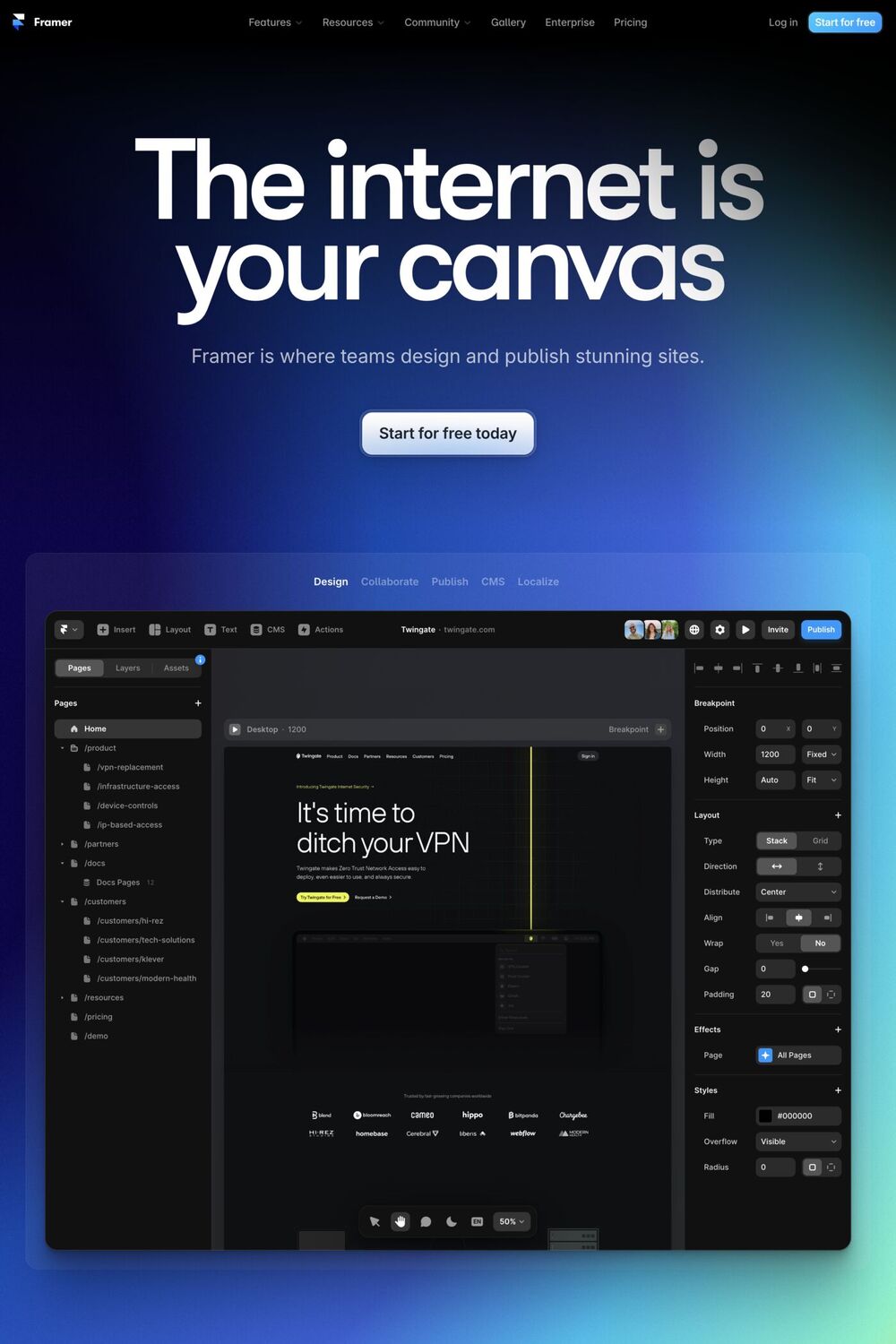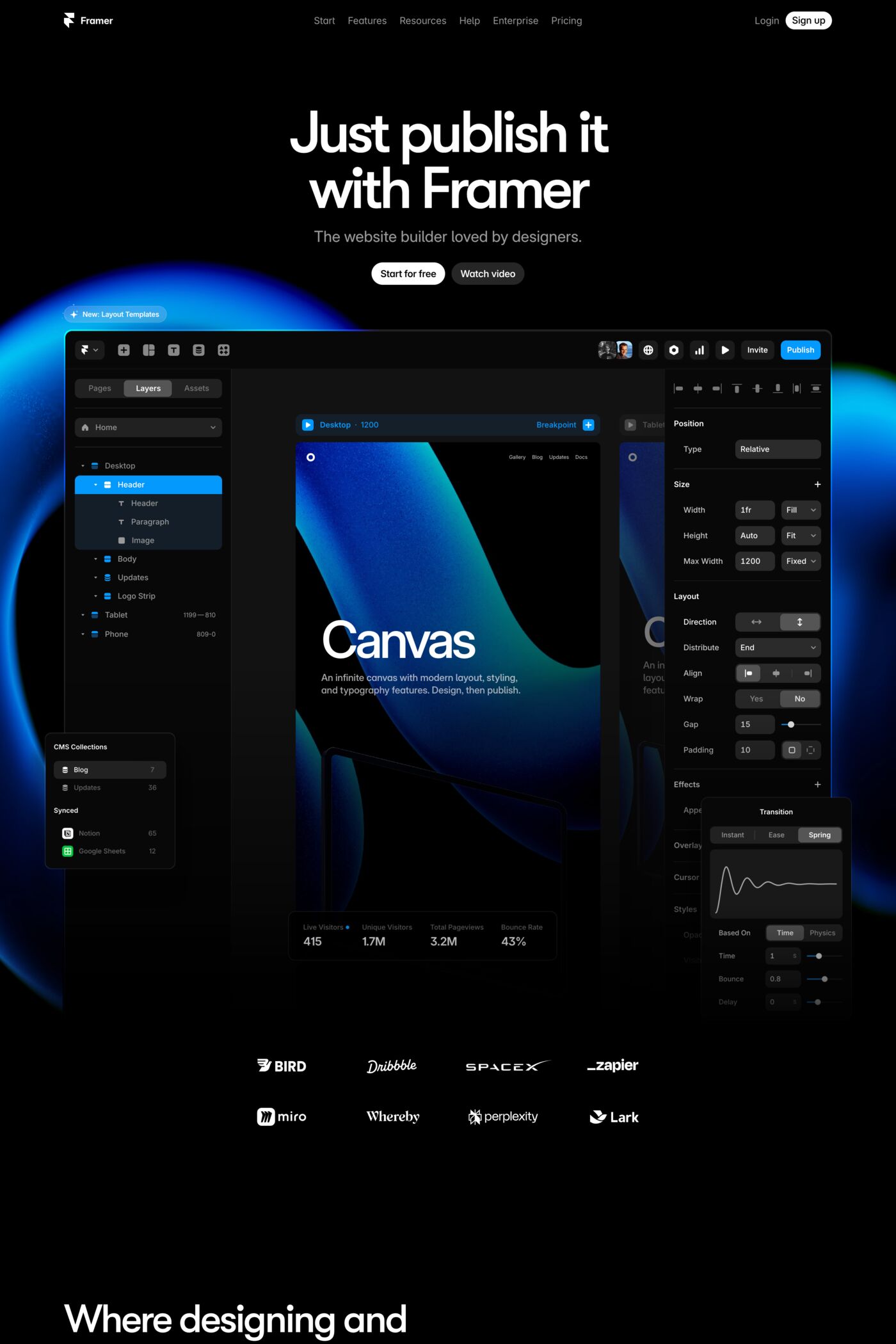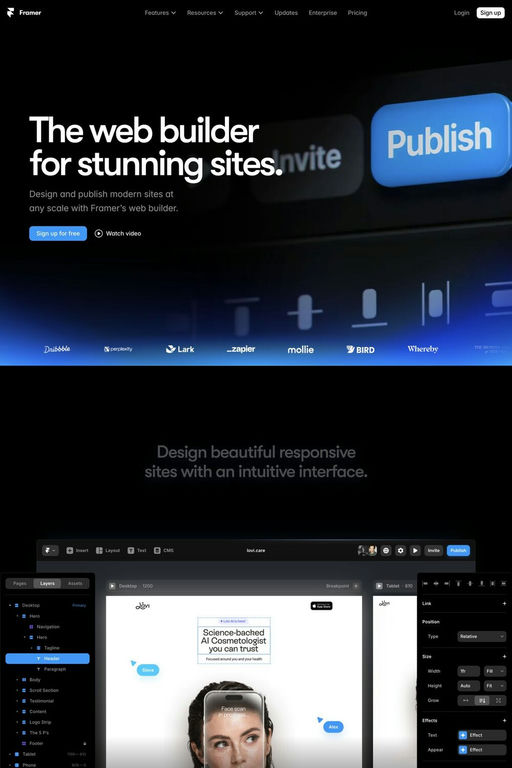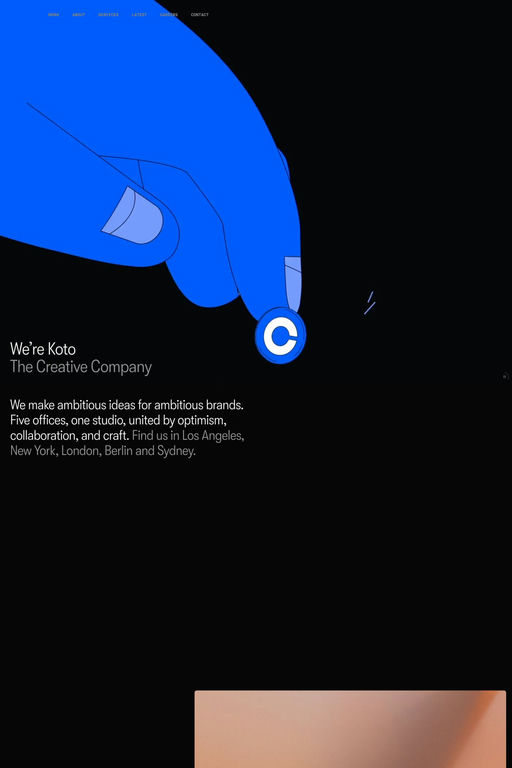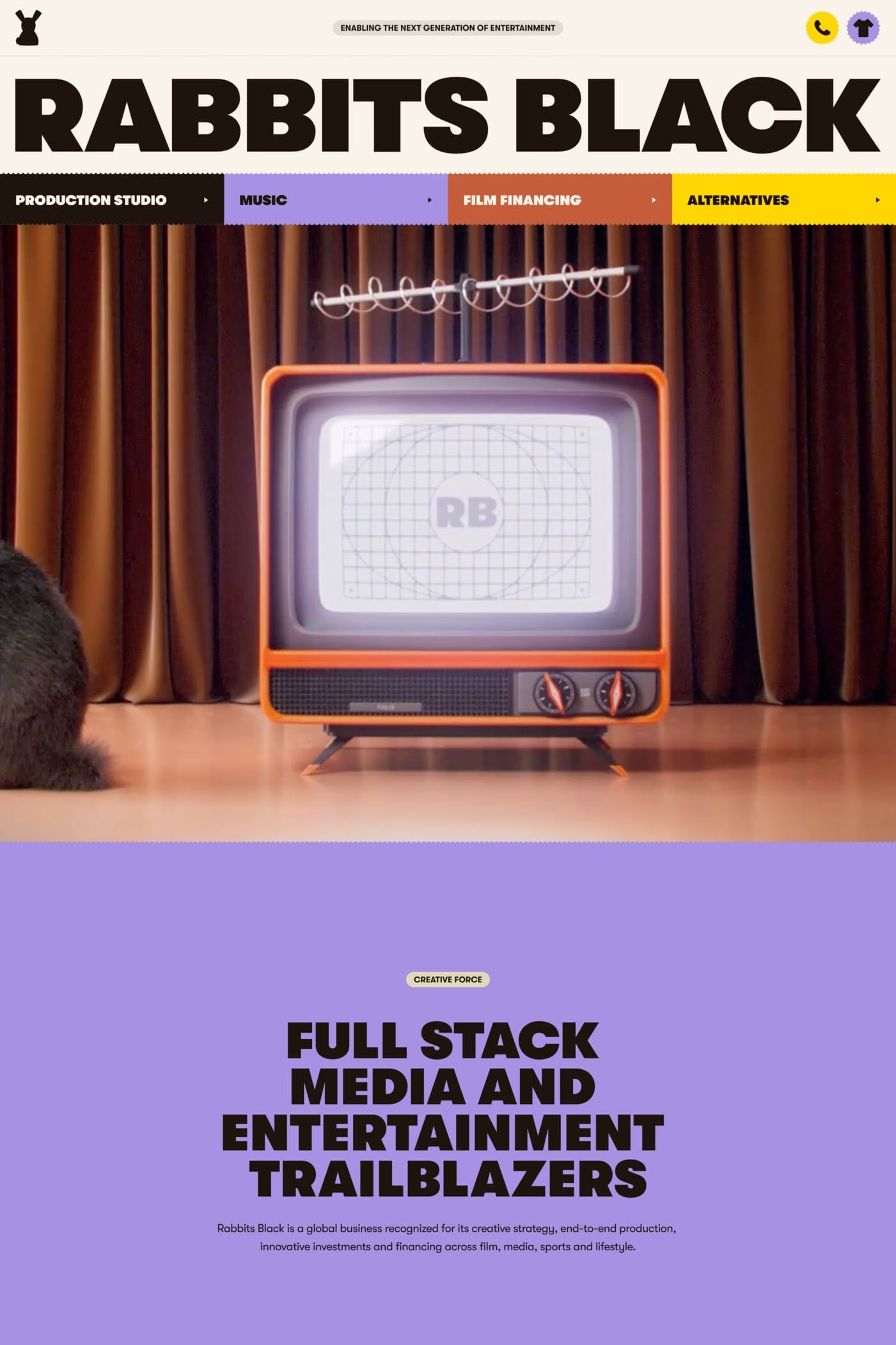
GT Walsheim is a sans-serif typeface from Grilli Type.
Inspired by the lettering of Swiss poster designer legend Otto Baumberger from the 1930s, GT Walsheim is a friendly but precise typeface. Supports all Cyrillic languages.
A1 features 5 websites using GT Walsheim, including Koto, Rabbits Black, and Framer. They lean towards Big type, Video, and Gradients design styles, and they’re most often built with Framer and Next.js.